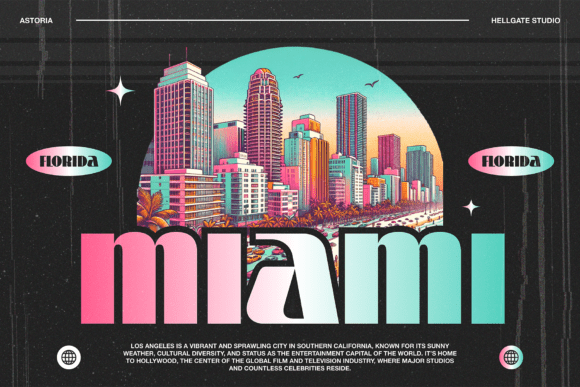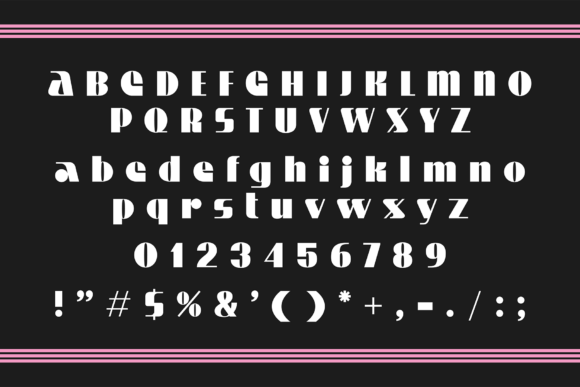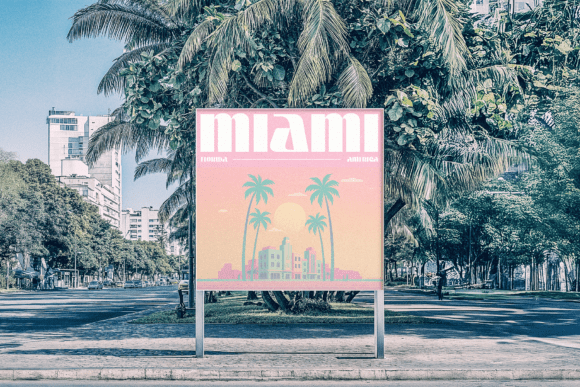
Introducing Astoria Font: The Ultimate Retro Display Font for Your Design Needs
Are you looking for a font that embodies the vibrant and iconic aesthetic of the 80s? Look no further than the Astoria font, a striking Retro Display Font that exudes an audacious attitude. Inspired by the classic style of Retro Miami Vice, Astoria is expertly designed to bring a touch of nostalgia and flair to your designs.
What is Astoria Font?
Astoria font is a meticulously crafted Retro Display Font that captures the essence of the 1980s. With its bold and vibrant design, Astoria is perfect for designers and crafters looking to add a touch of retro charm to their projects. Whether you’re working on a graphic design project, crafting a logo, or creating a themed invitation, Astoria font provides the perfect blend of style and readability.
Key Features of Astoria Font
- Retro Aesthetic: Astoria font embodies the iconic style of Retro Miami Vice, transporting you back to the vibrant and colorful world of the 80s.
- Effortless Versatility: Astoria font allows for seamless editing of text and color, making it easy to customize and adapt to your design needs.
- High-Quality Impact: Rendered with meticulous precision, Astoria font offers high-quality impact for your themed designs, ensuring that your work stands out from the crowd.
Design Uses for Astoria Font
Astoria font is an incredibly versatile typeface that can be used in a wide range of design applications. Here are some ideas to get you started:
- Graphic Design: Use Astoria font to add a touch of retro flair to your graphic design projects, such as brochures, posters, and flyers.
- Logo Design: Create a bold and eye-catching logo with Astoria font, perfect for businesses and brands looking to make a statement.
- Themed Invitations: Add a touch of nostalgia to your themed invitations, such as 80s-themed parties, with Astoria font.
- Digital Art: Use Astoria font to create stunning digital art pieces that showcase your creativity and style.
Why Choose Astoria Font?
With so many fonts available, why choose Astoria font? Here are just a few reasons why Astoria stands out from the crowd:
- Unique Style: Astoria font offers a unique and distinctive style that is sure to grab attention.
- High-Quality Design: Astoria font is expertly designed with precision and attention to detail, ensuring a high-quality impact.
Get Ready to Immerse Yourself in the Coastal Vibrancy of the 80s